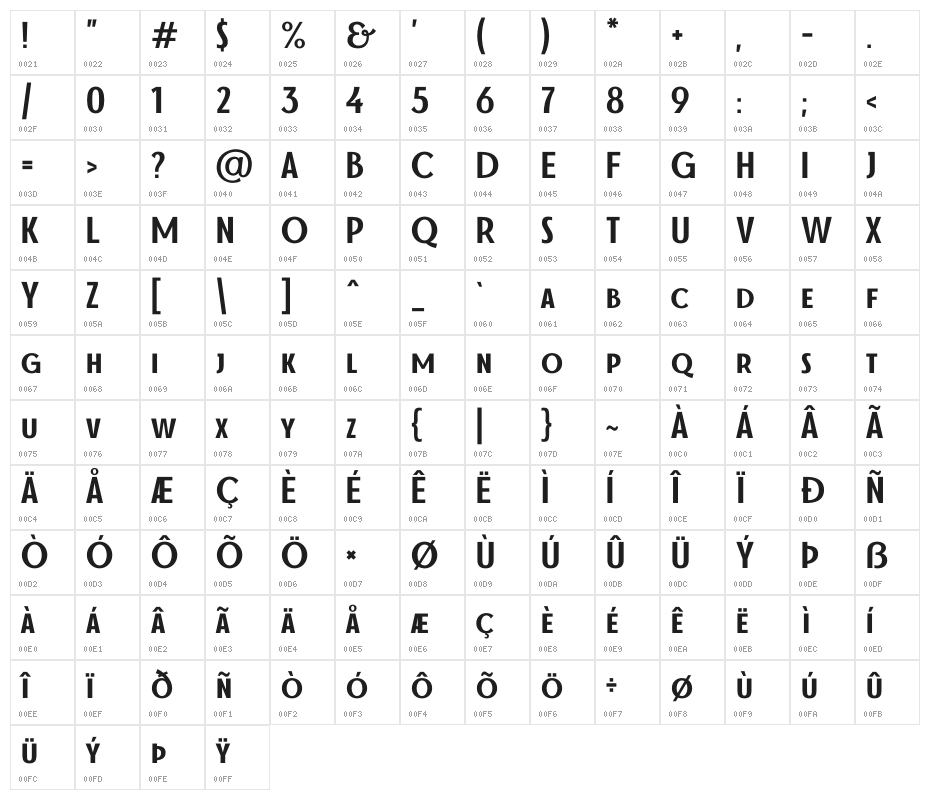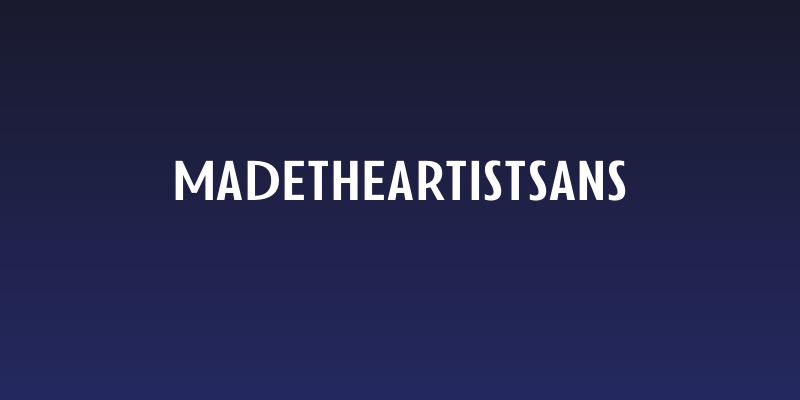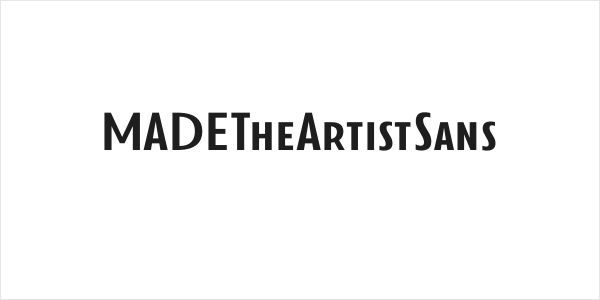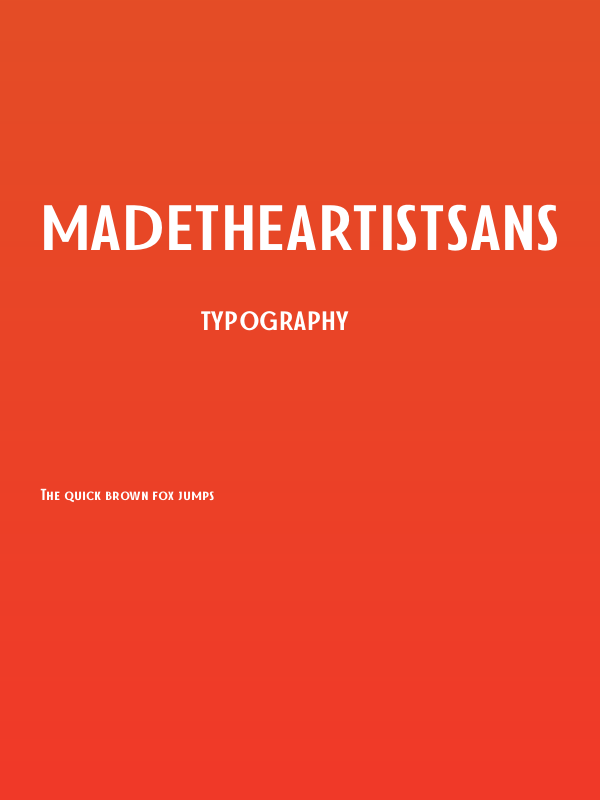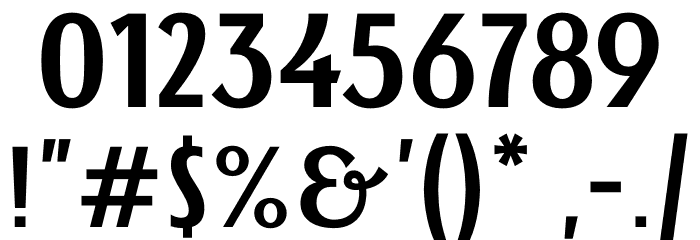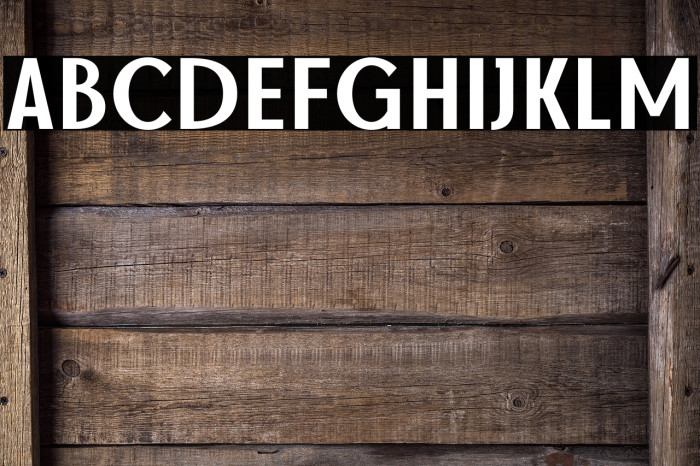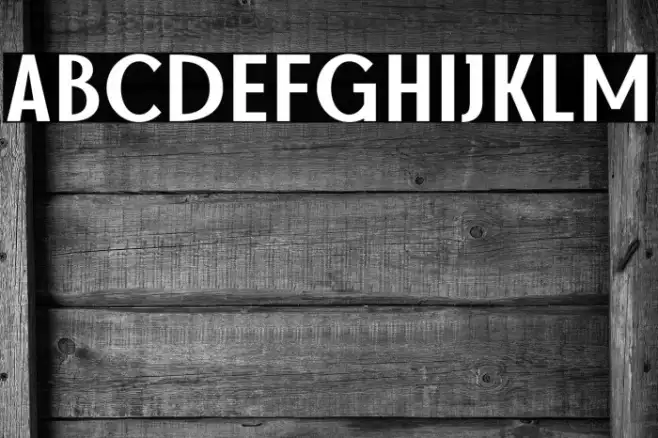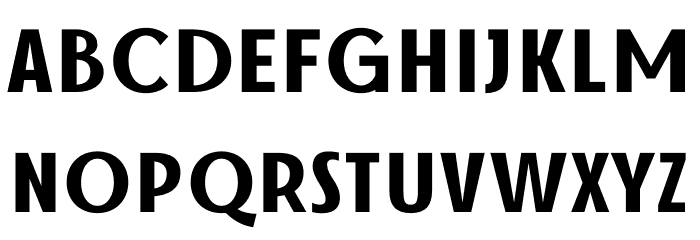
MADETheArtistSans Font
MADETheArtistSans Description
This font features a bold and assertive sans-serif style, characterized by clean lines and a modern aesthetic. The uppercase letters are uniform in height, providing a cohesive and structured appearance. The lowercase letters maintain a similar width, ensuring readability and balance. The numerals are distinct and clear, making them suitable for various applications. Special characters are well-defined, adding versatility to the font's use. Overall, this font exudes a contemporary feel, making it ideal for modern design projects.